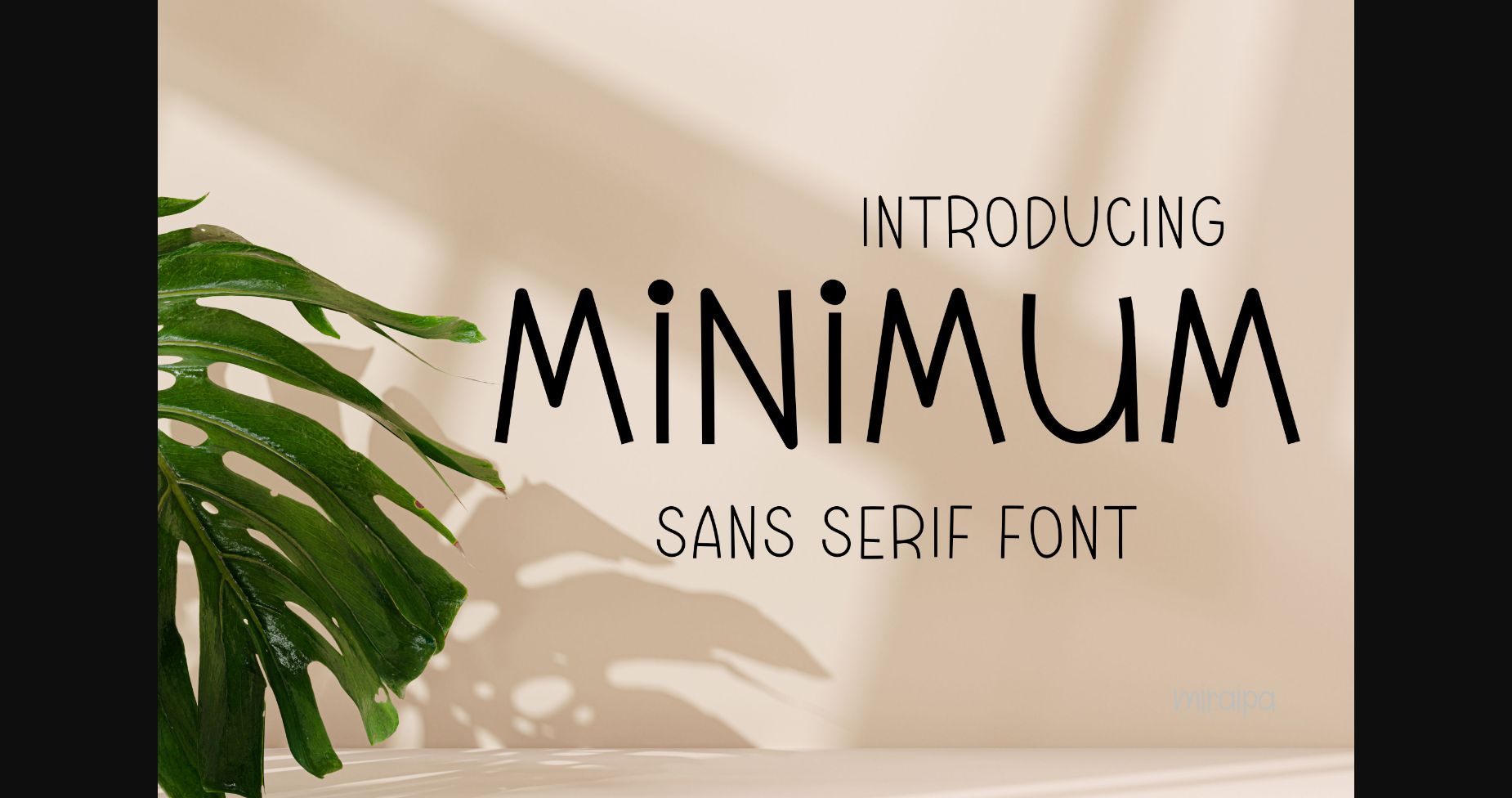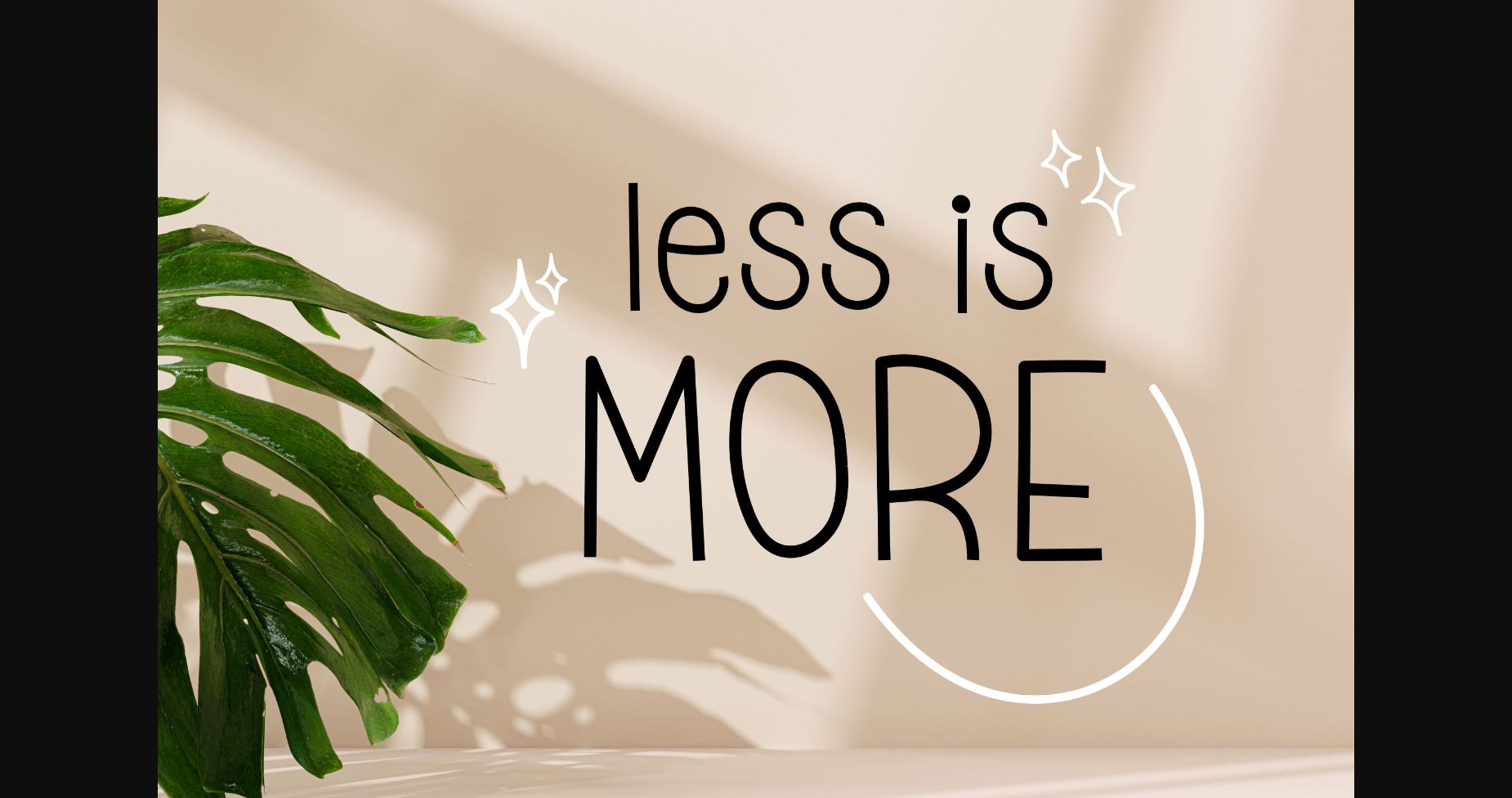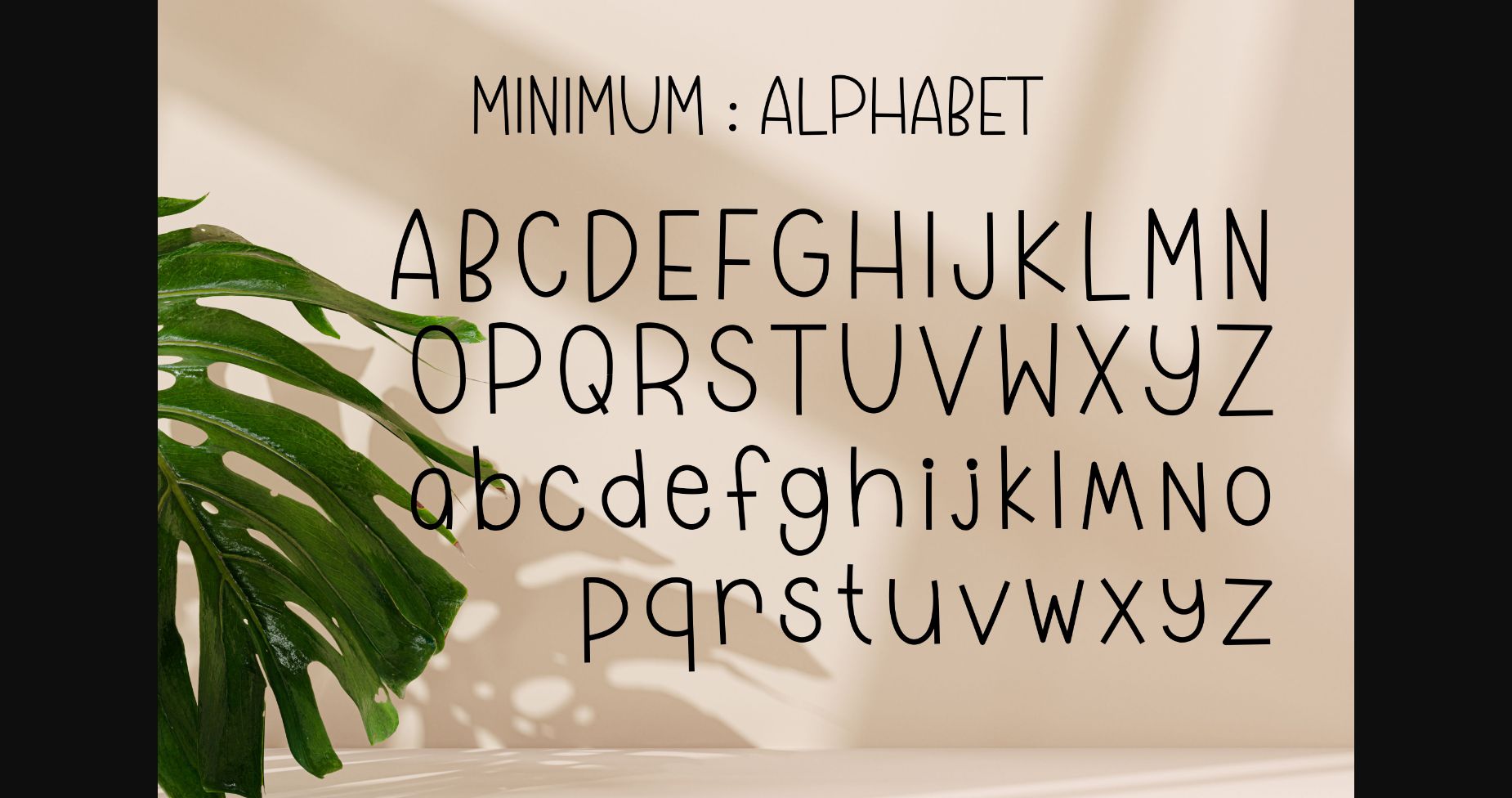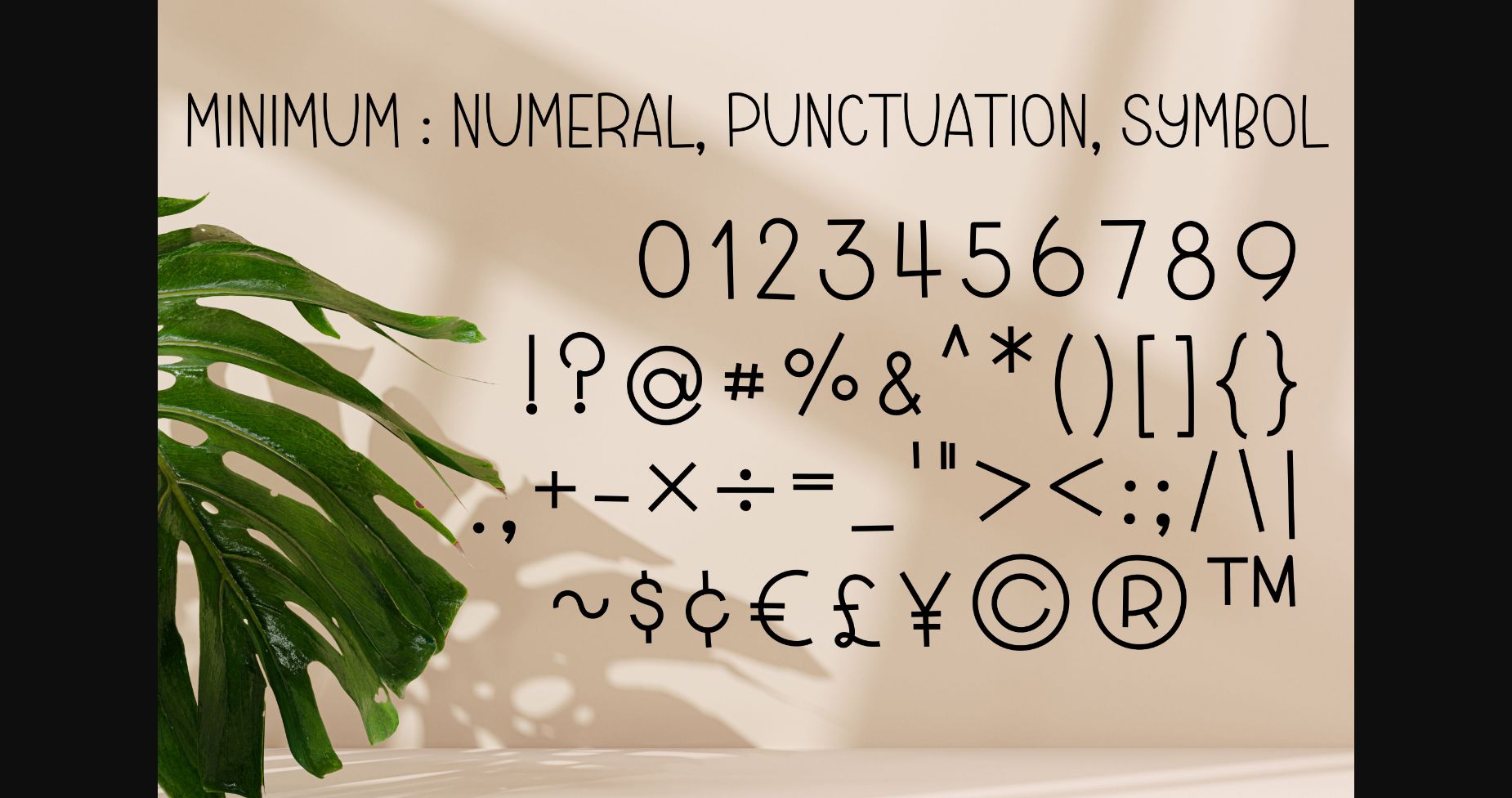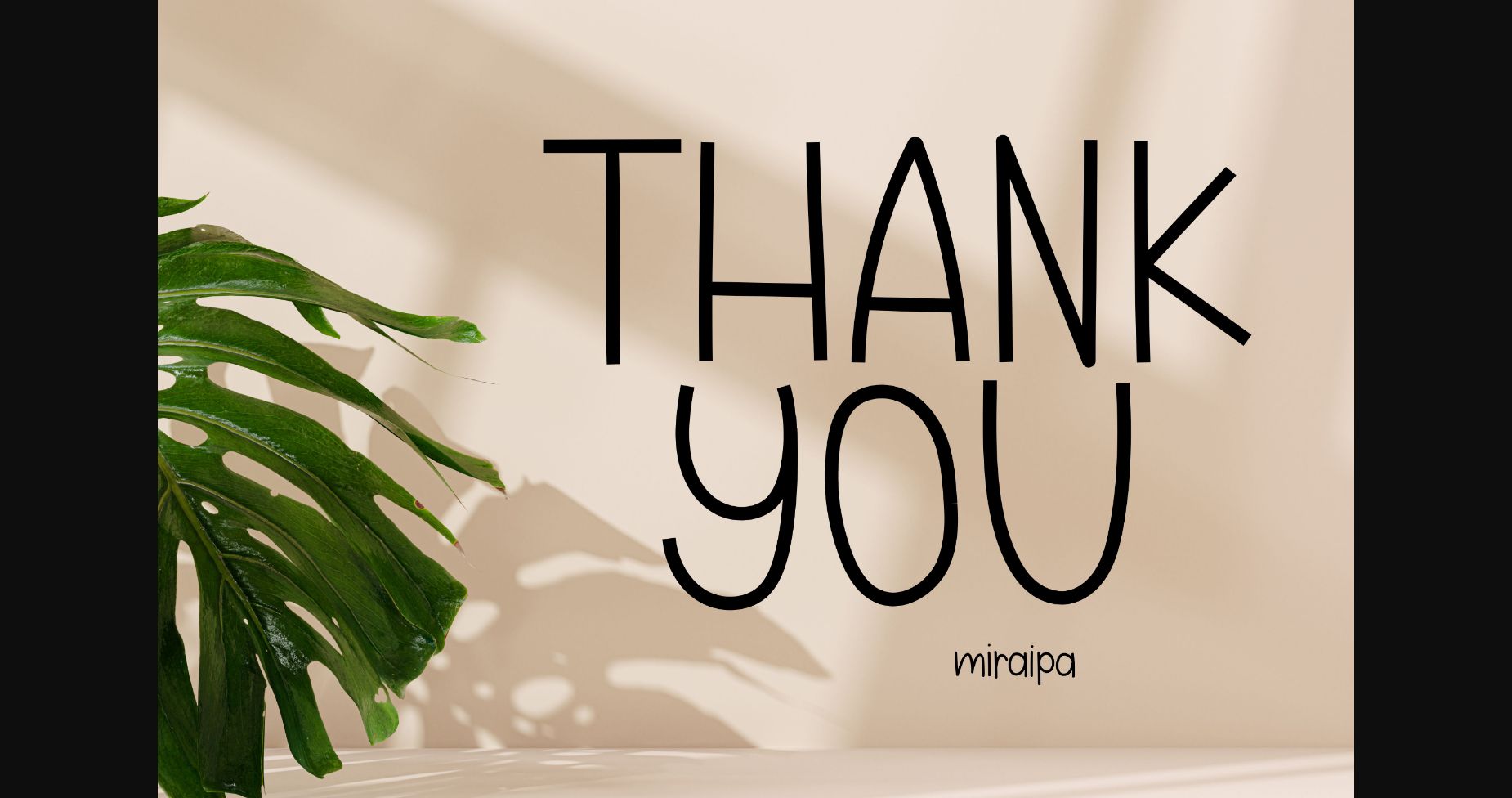
Minimum Font
About Minimum Font
Minimum is designed in a friendly and lovely style. It would be awesome for your diary planner and journal which you are able to use every day, also your perfect projects such as back to school, wedding, party decoration, invitations, festivals, posters, blogs, clothing, child-related designs, greeting cards, social media posts or anything that needs a friendly touch. Add it now to your fonts library, and it will bring any of your DIY projects to life.